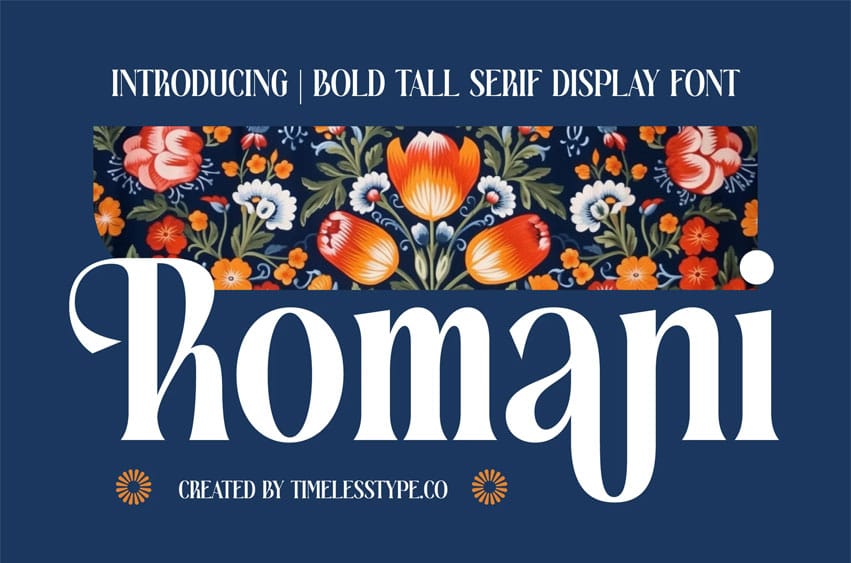
Romani Font is a bold, tall serif display font that blends traditional charm with modern flair. Its strong vertical structure and elegant curves make it perfect for editorial titles, posters, and luxury packaging.
Designed with attention to balance and proportion, Romani captures a sense of sophistication and creativity — ideal for projects that seek a stylish, classic, and artistic presence.